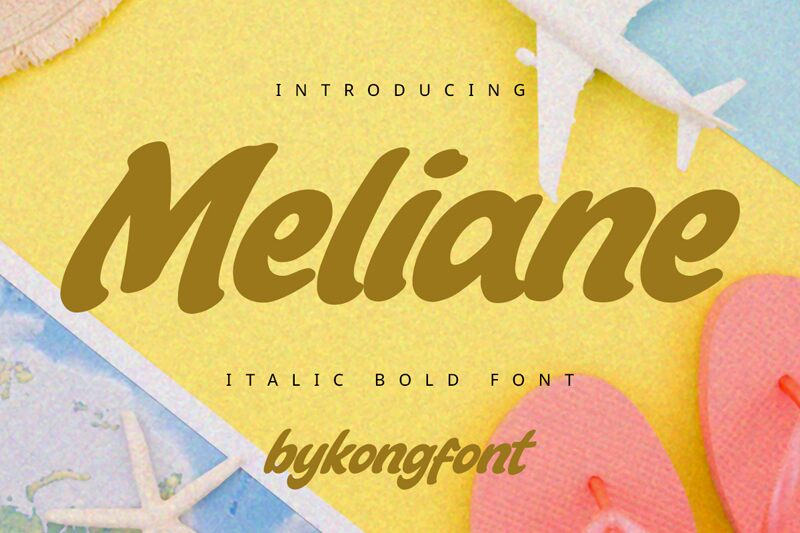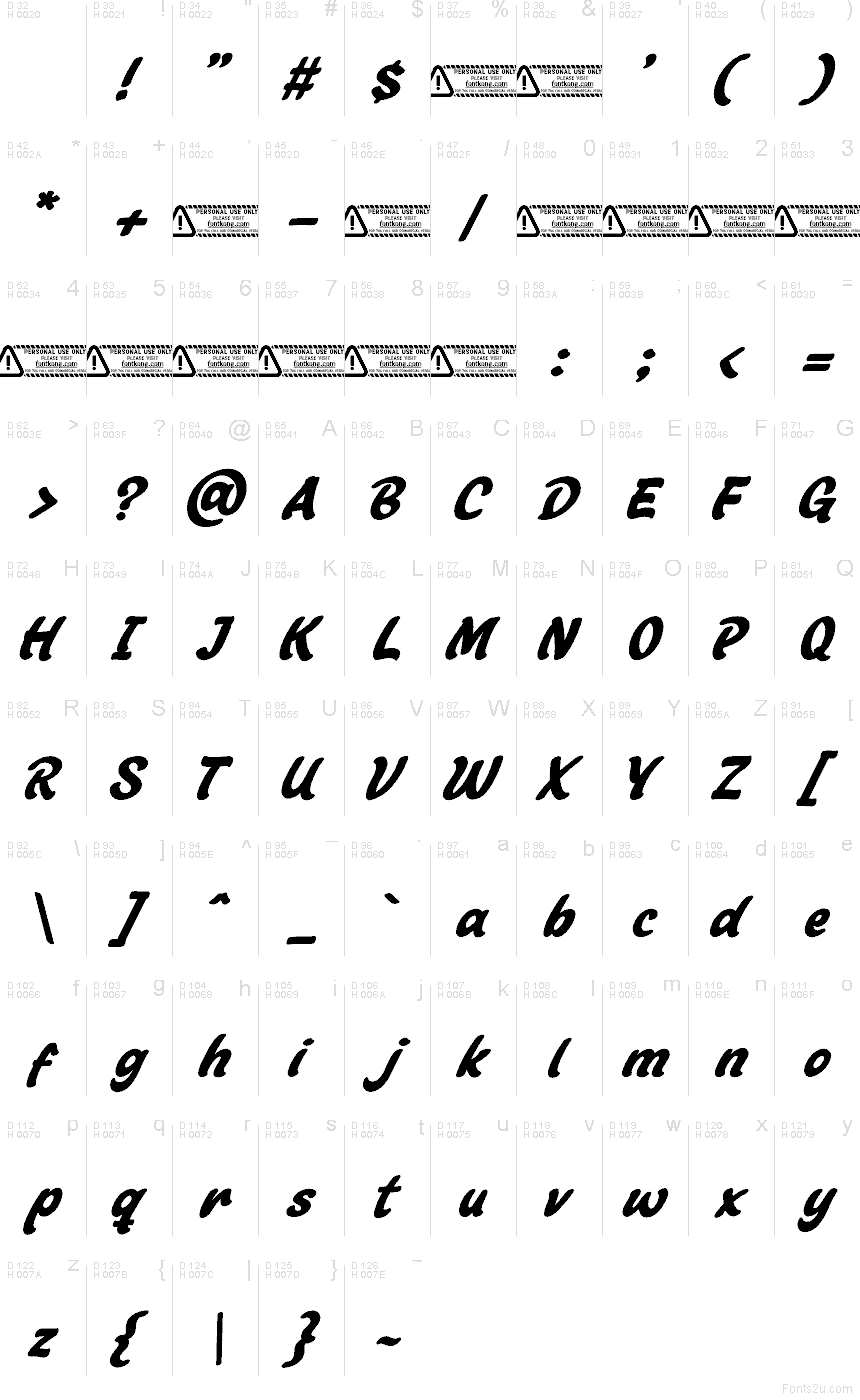
Meliane font by Kong Font is a free brush script typeface that looks like it’s been painted in one confident sweep. Thick, inky strokes and a smooth slant give it a bold, rhythmic flow, while the letters stay compact enough to read in a glance. It feels warm and handcrafted, but with the polish you need for real-world branding and headlines.
Using Meliane, you can inject personality into café and bakery logos, product packaging, social media graphics, quote posters, event flyers, and lifestyle merch. This free font shines when set large, where its brush texture can really breathe; pair it with a clean, narrow sans serif for supporting text to keep the overall layout sharp and balanced.